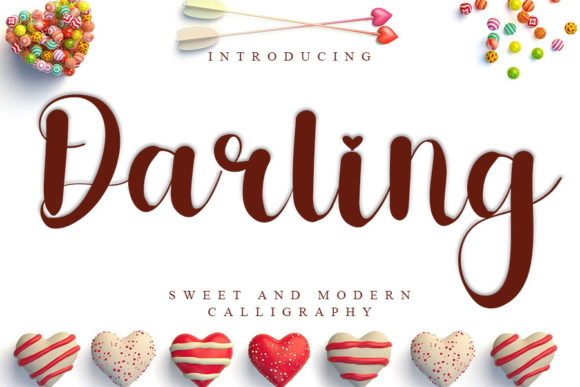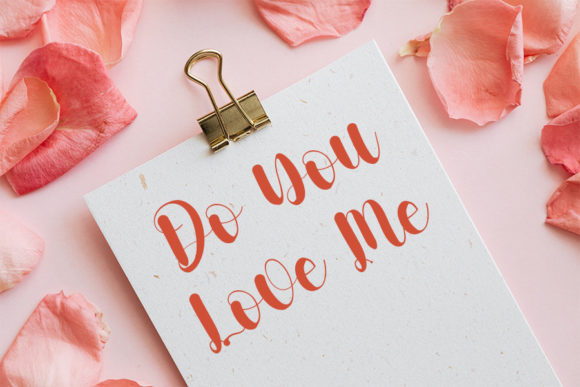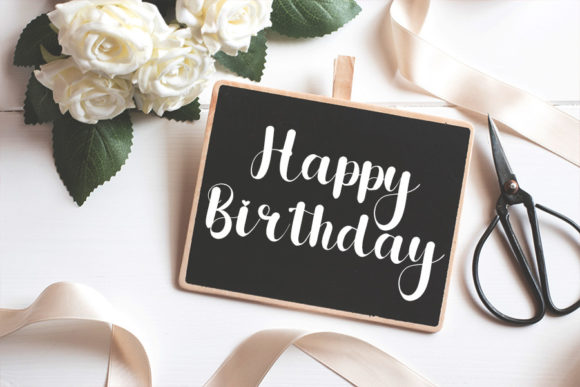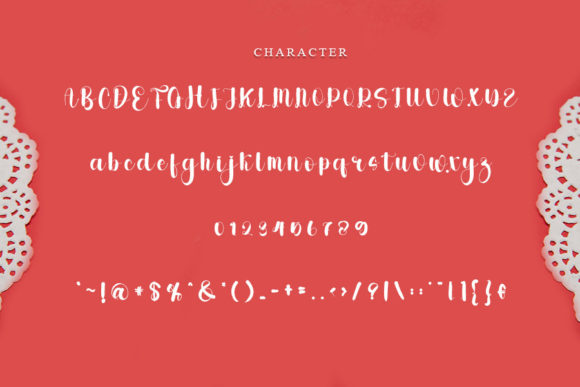
About Darling Font
Darling a is a gorgeous and bold handwritten font crafted to give your headlines and logotype projects a stylish touch. This font reads strong, confident, and dynamic and can add tons of nostalgic character to your designs.